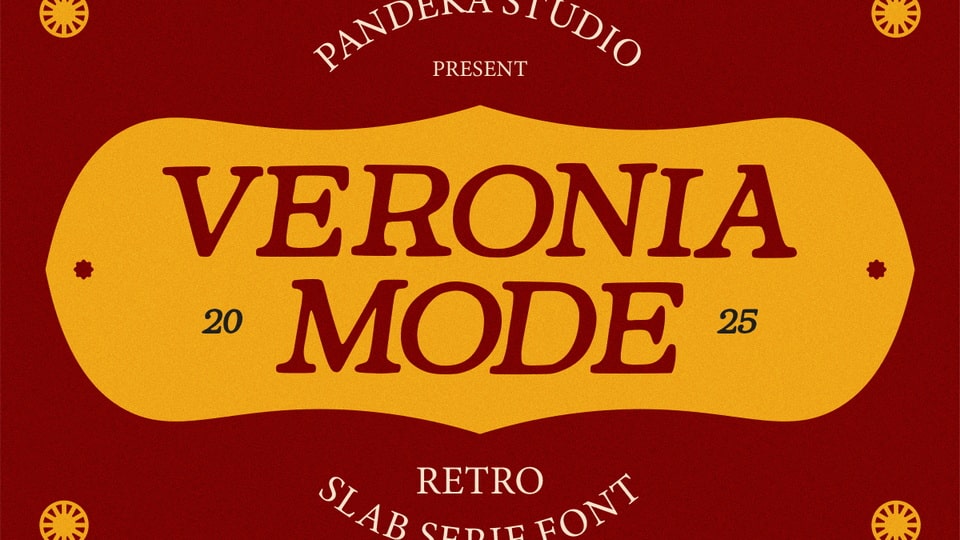
Download Veronia Mode font, a bold retro serif typeface with a vintage aesthetic and classic lettering. Its thick serifs and smooth curves bring a timeless yet stylish display to any design.